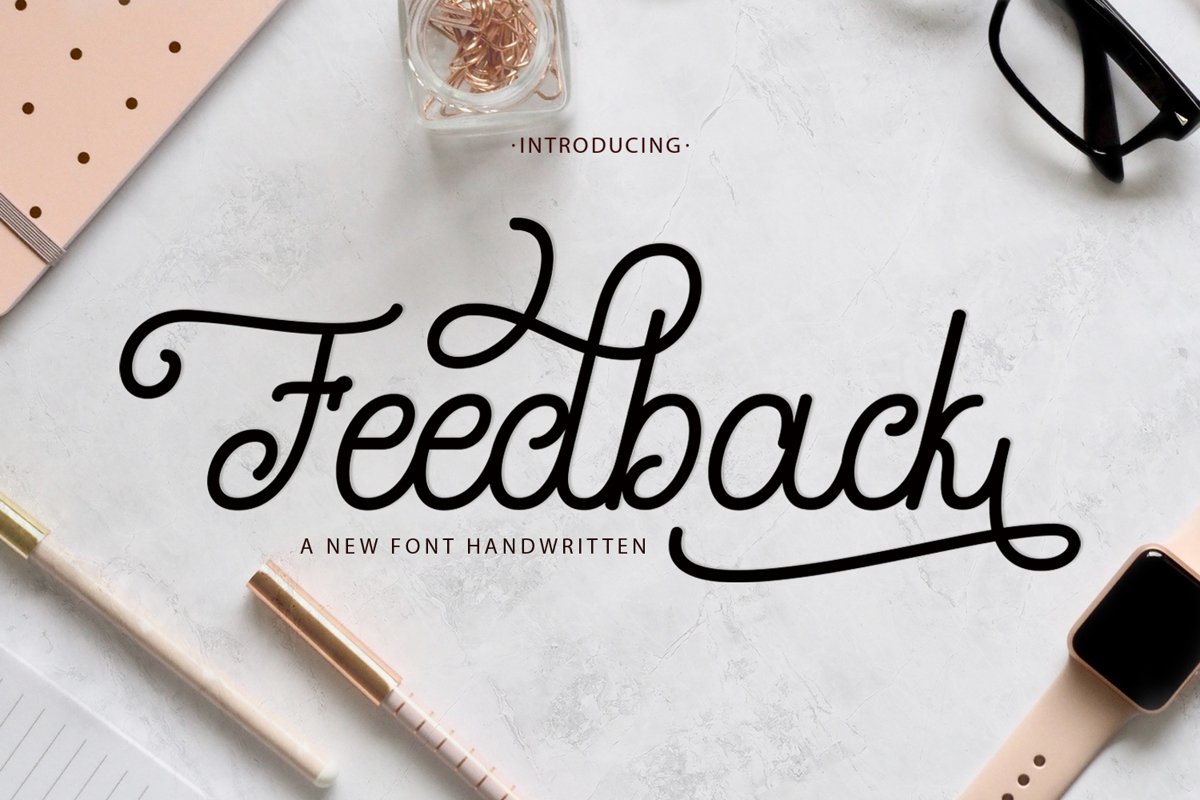
Feedback Script | Combinations
Feedback Script
Introducing Feedback Script
Feedback Script is modern calligraphy script font, every single letters has been carefully crafted to make your text looks beautiful. With modern script style this font will perfect for many different project, example: invitations, greeting cards, posters, name card, quotes, blog header, branding, logo, fashion, apparel, letter, stationery and more!
Feedback Script come with 484+ glyphs. The alternative characters were divided into several Open Type features such as Swash, Stylistic Sets, Stylistic Alternates, Contextual Alternates. The Open Type features can be accessed by using Open Type savvy programs such as Adobe Illustrator, Adobe InDesign, Adobe Photoshop Corel Draw X version, And Microsoft Word. And this Font has given PUA unicode (specially coded fonts). so that all the alternate characters can easily be accessed in full by a craftsman or designer.